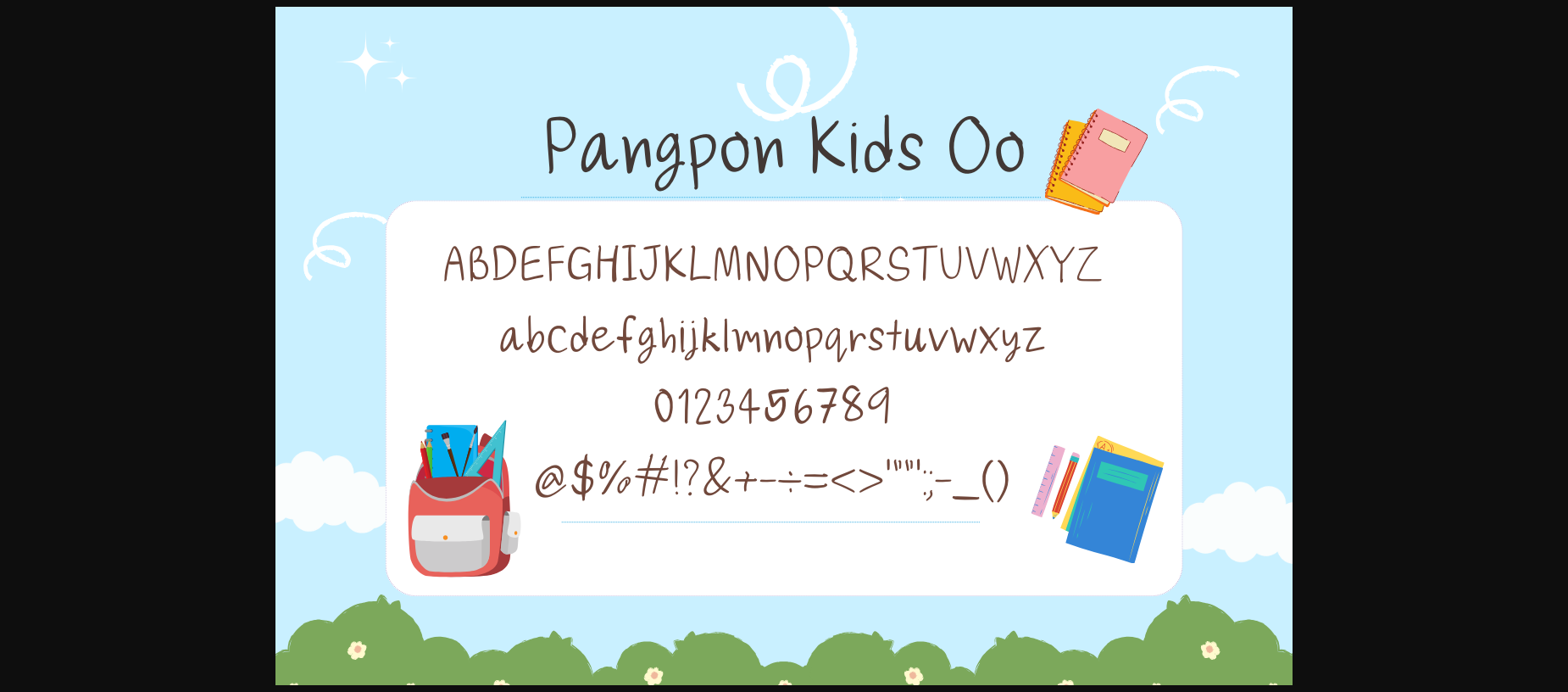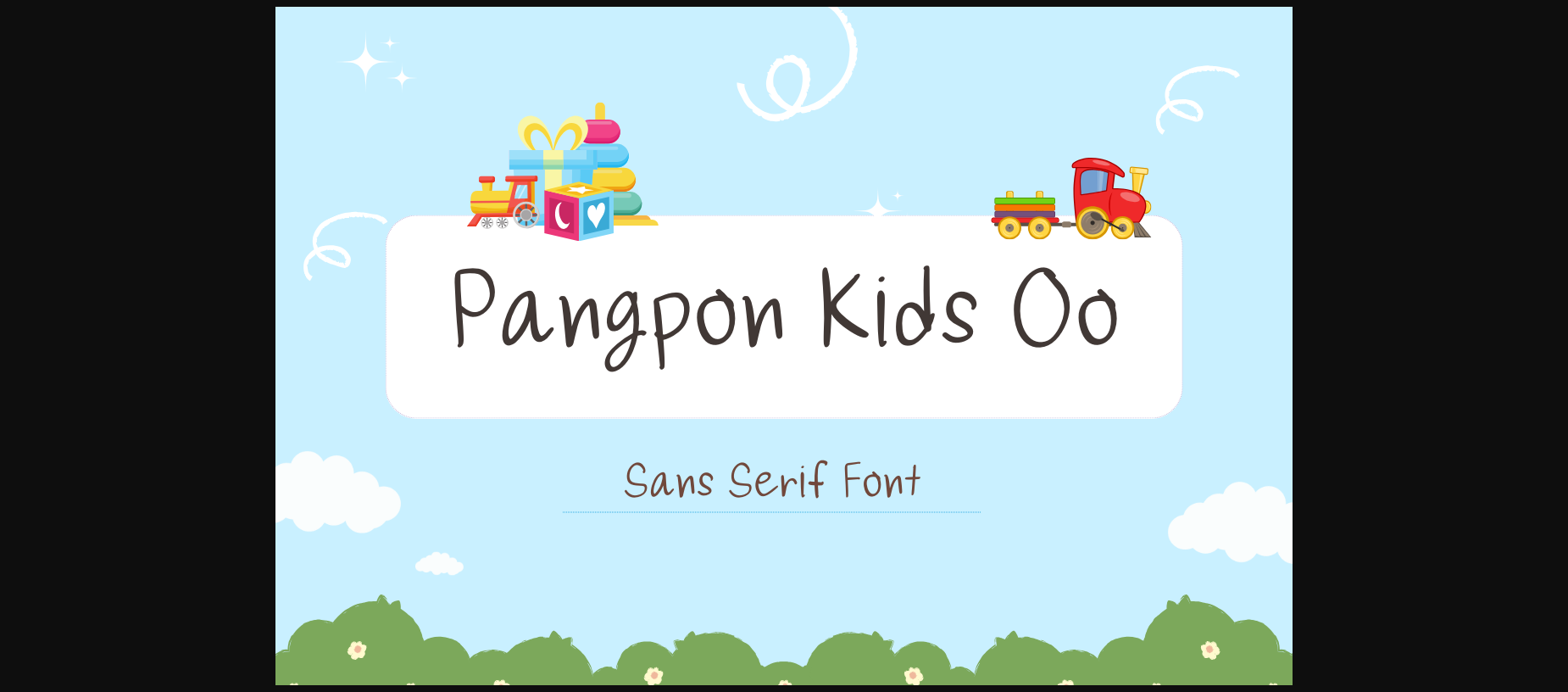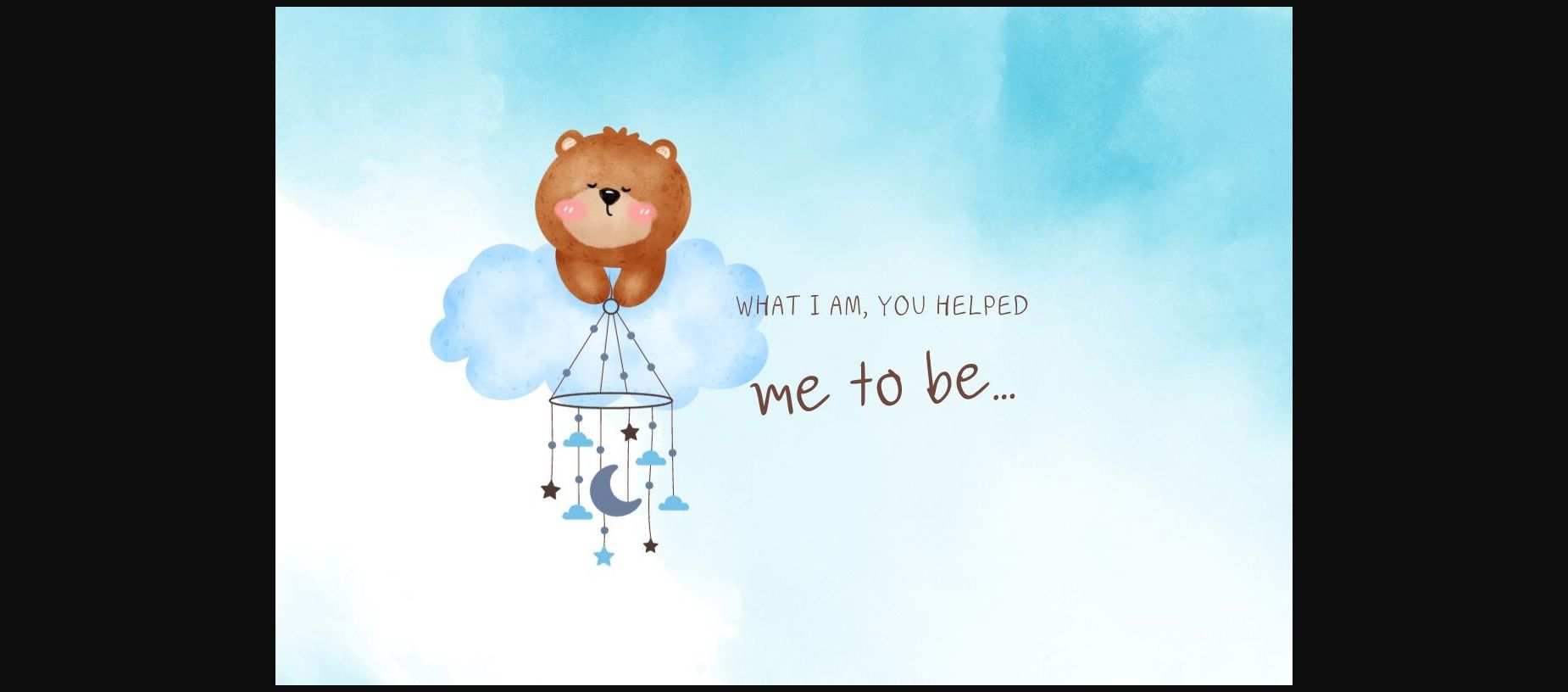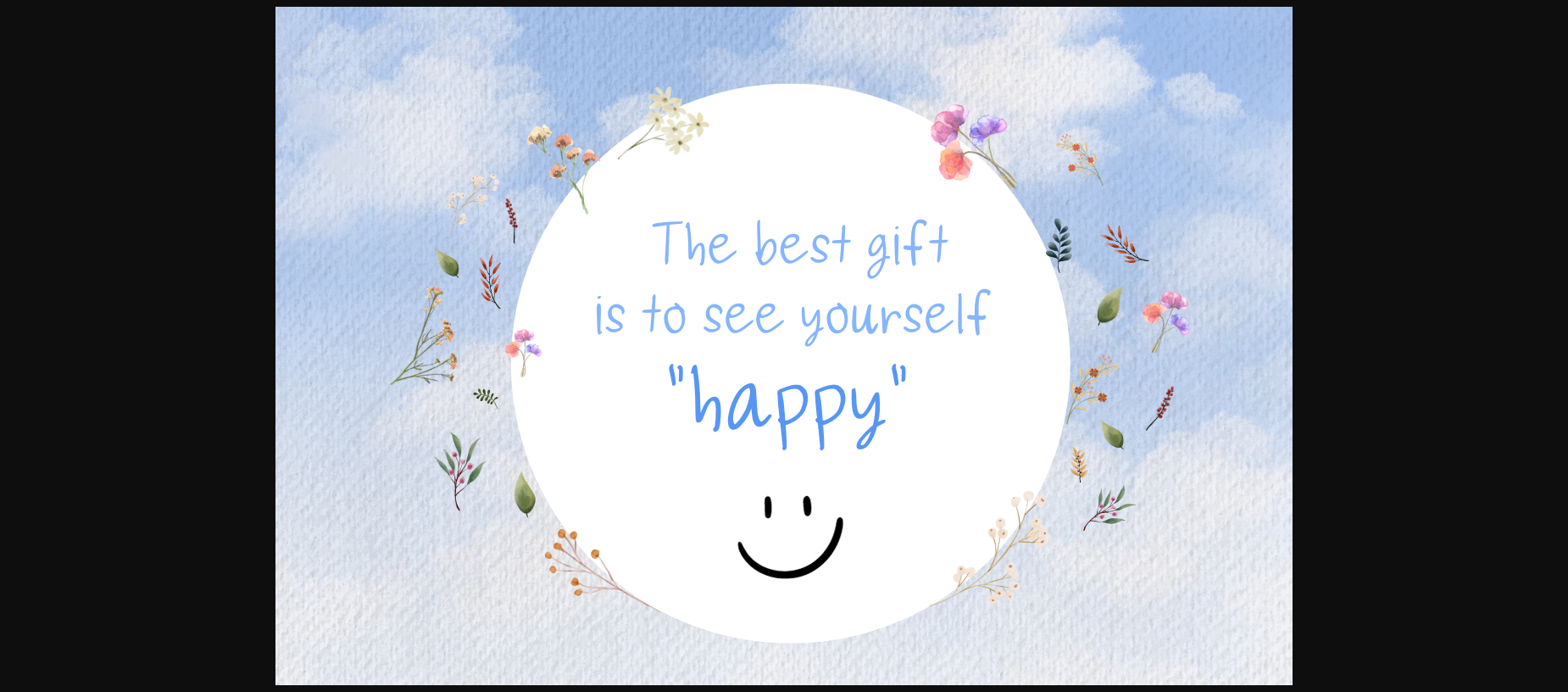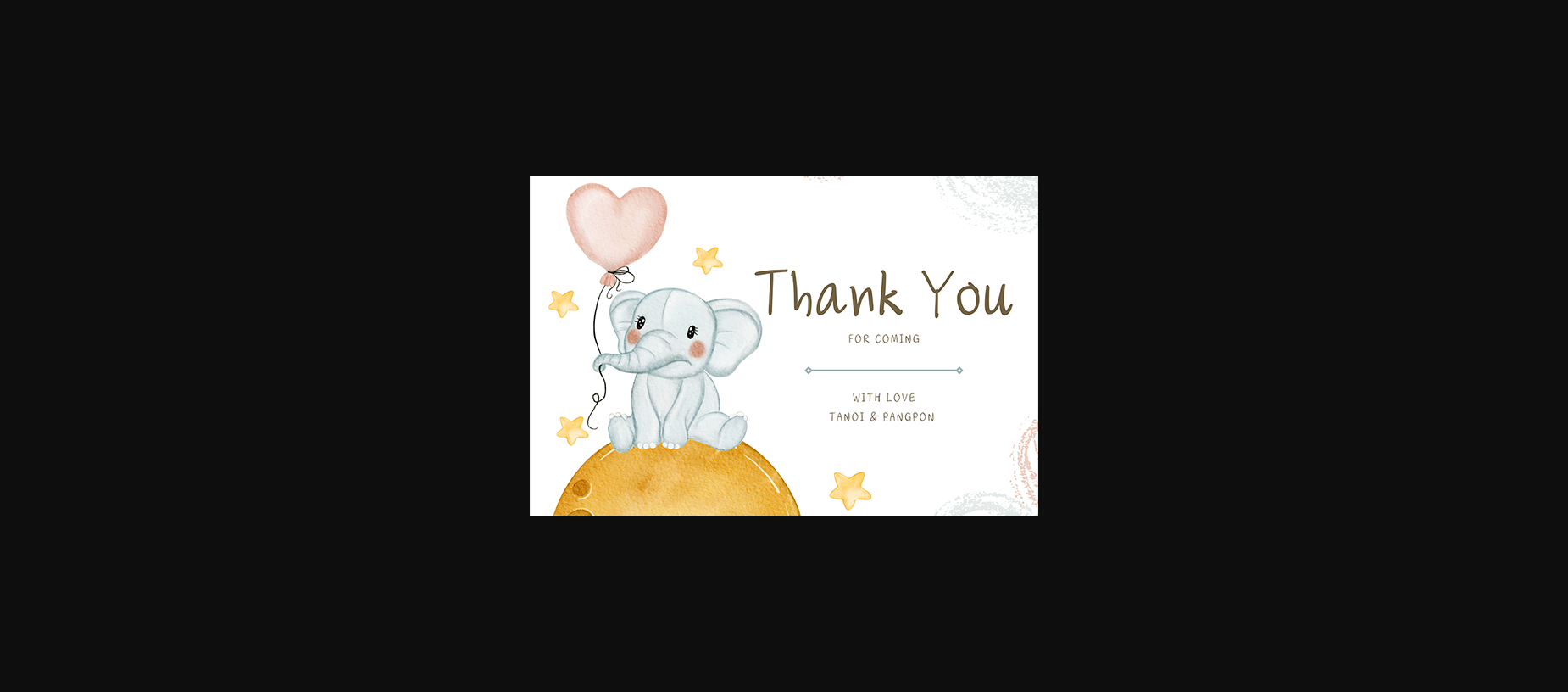
Pangpon Kids Oo Font
About Pangpon Kids Oo Font
Pangpon Kids Oo is designed in a cute and playful sans serif font style. It’s charming, whimsical, and a modern. It would be an awsome addition to your fun projects or diary planner.